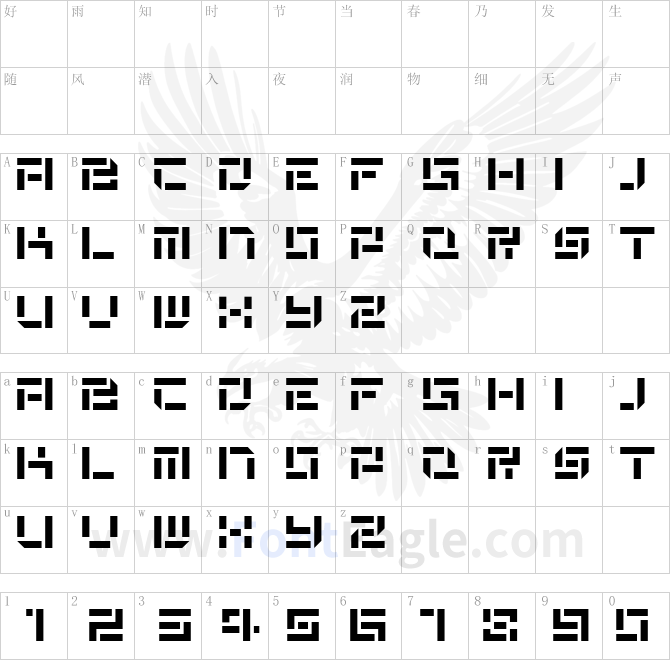
- Font name:DeStencilNF
- Font Subfamily ID:Nick’sFonts: DeStencilNF: 2003
- Font Full Name:DeStencilNF
- Font Version:Version 1.00 2003 initial release
- Postscript:DeStencilNF